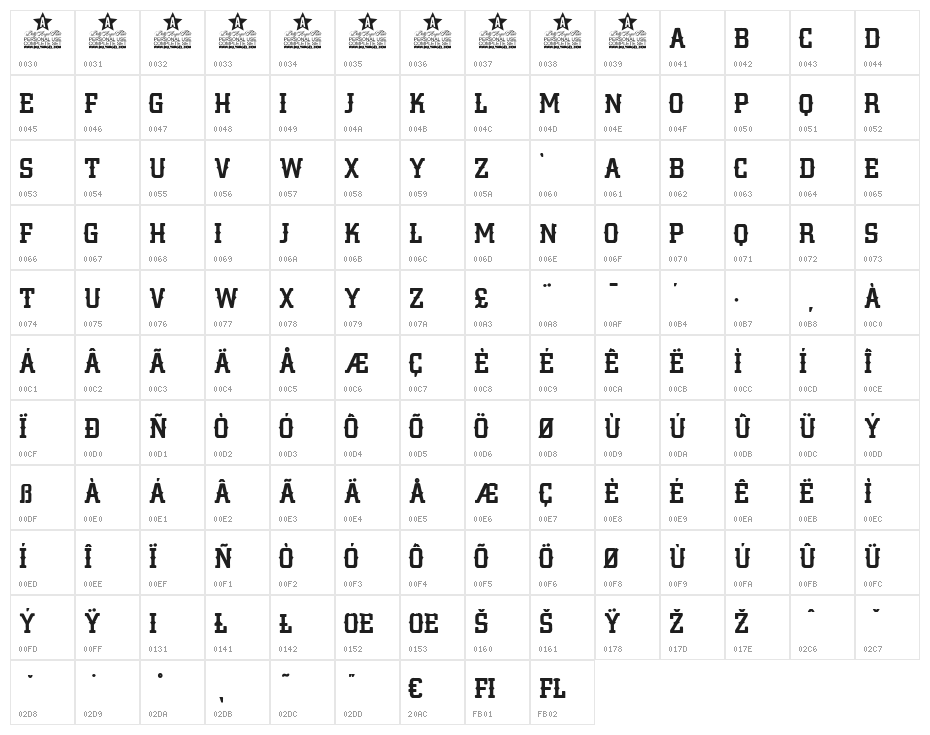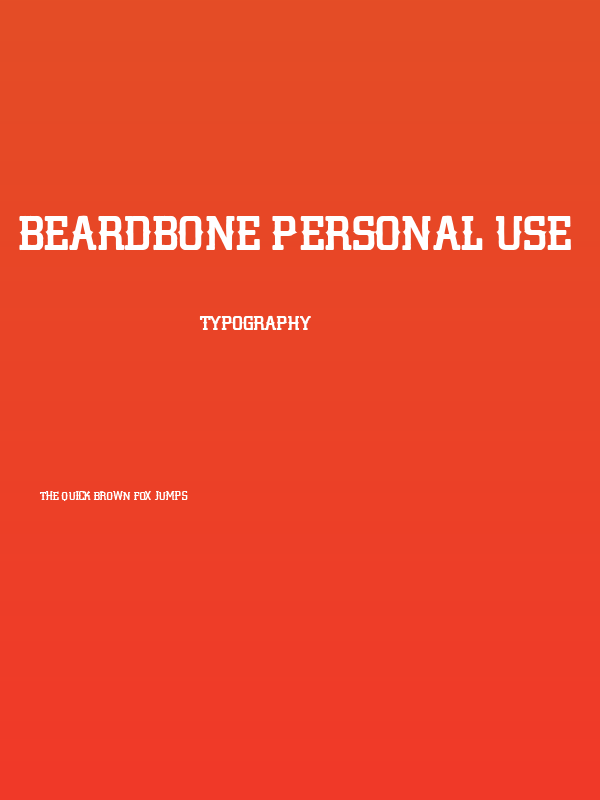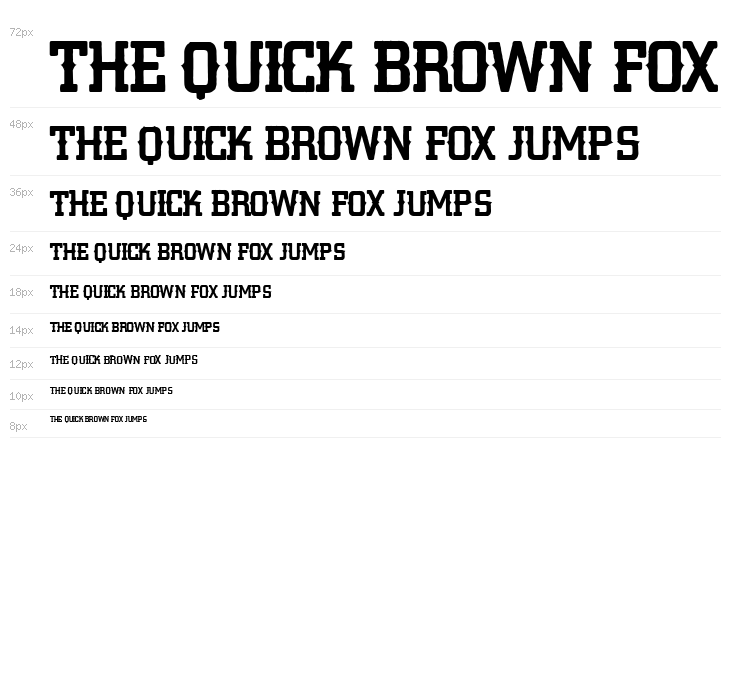
BEARDBONE PERSONAL USE Font
BEARDBONE PERSONAL USE Description
This font features a bold and rugged design, characterized by its thick, blocky letters with sharp, angular edges. The uppercase letters are uniform in height, giving a strong and cohesive appearance. The font has a distinct, vintage feel, reminiscent of old western or industrial styles. Its boldness and unique character make it stand out, suitable for designs that require a strong visual impact. The font's structure is consistent, with each letter maintaining a similar width and height, contributing to its solid and sturdy look.